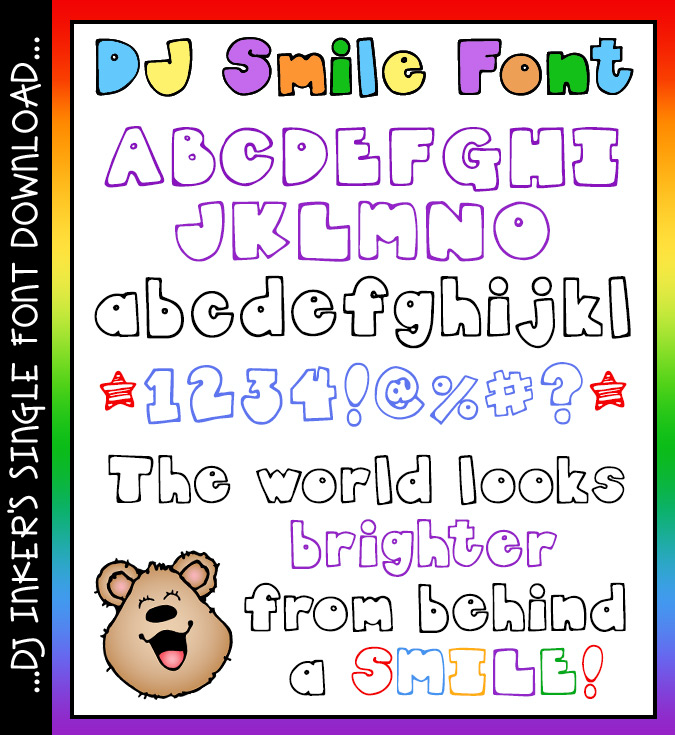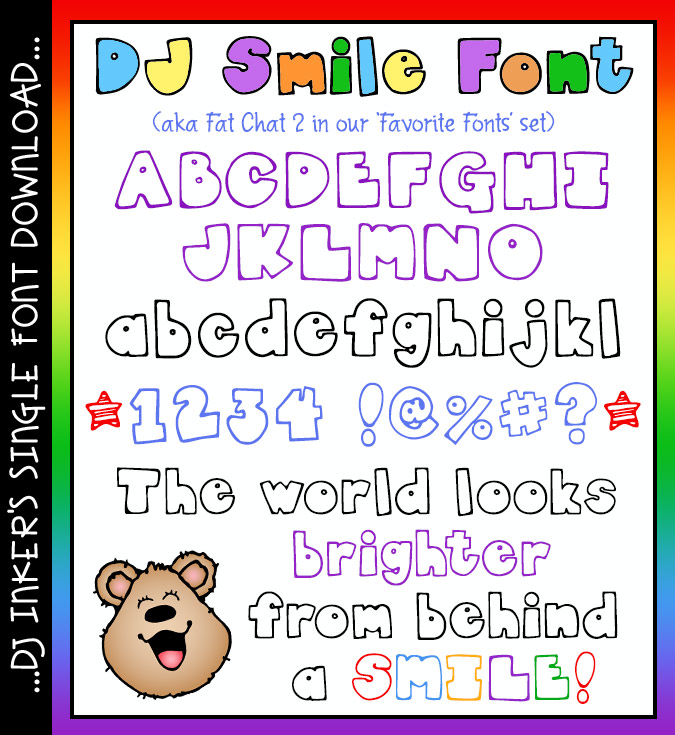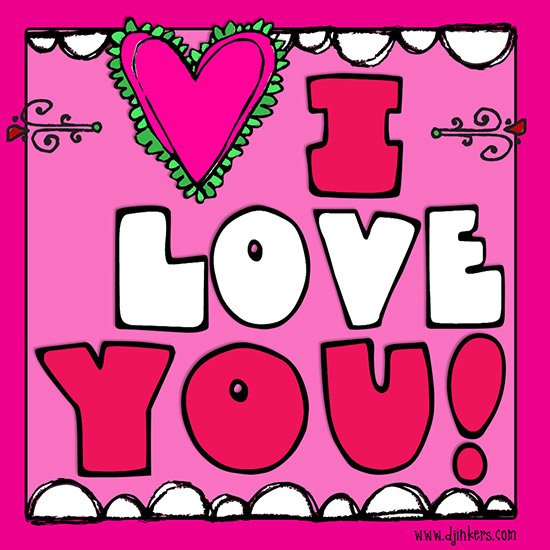
A bold block letter font to make your projects smile by DJ Inkers
DJ Smile Font Download
A bold block letter font to make your projects smile by DJ Inkers
DJ Smile Font Download
Add a DJ Smile to any project with this cute block lettering font by DJ Inkers. DJ Smile is bold and easy to read, but light and playful at the same time. Perfect for school, posters, parties and creative fun! The world looks brighter from behind a smile, so use this adorable lettering to type-up a few of your own.